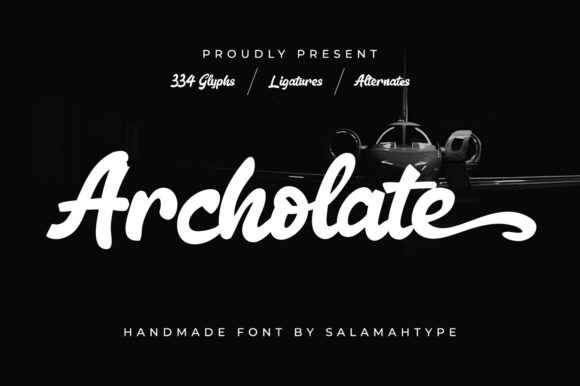
Archolate Script: Bringing Elegant Flow to Your Designs
When a project calls for a touch of personality that feels both authentic and refined, the right typeface can make all the difference. Archolate Script is a script font that captures the essence of fluid, handwritten charm. It’s not just another decorative typeface; it’s a premium font crafted to inject warmth and elegance into your work. The characters flow with a delicate, connected rhythm, making it a standout choice for anyone looking to add a human touch without sacrificing sophistication. This isn't about mimicking a hurried note—it’s about achieving a polished, romantic aesthetic that feels intentionally beautiful.
The Visual Heartbeat: Style and Personality
Looking closely at Archolate Script, you'll notice its defining feature: a graceful, flowing baseline. The letterforms are designed with gentle curves and subtle variations in stroke width, mimicking the natural pressure of a skilled hand holding a fine pen. This gives the handwritten font a lively yet composed character. It avoids the extremes of being overly casual or overly formal, landing in a sweet spot that feels both personal and professional. The overall appeal is one of understated romance and timeless charm. It’s a display font that commands attention through its beauty, not its volume, making it ideal for headlines, logos, and short, impactful text where its intricate details can truly shine.
One of the most practical aspects of this typeface is its PUA encoding. For designers and creators, this means every glyph, swash, and stylistic alternate is easily accessible, even in basic design software. You can seamlessly add flourishes to capital letters or connect words in unique ways to customize the look for each specific application. This level of access transforms Archolate Script from a static font into a dynamic design asset, allowing for true creative expression and ensuring your typography feels bespoke.
Where Archolate Script Truly Shines: Practical Applications
Understanding a font’s personality is one thing; knowing where to deploy it is where the real value lies. Archolate Script excels in projects where emotional connection and visual elegance are paramount. Its versatility allows it to enhance a wide array of creative endeavors.
Branding and Identity Projects
For logo design and brand identity, this typeface can become the cornerstone of a brand's voice. It’s particularly effective for businesses in the wedding industry, artisanal goods, boutique shops, florists, bakeries, and high-end personal services. When used in a logo, Archolate Script instantly communicates care, quality, and a personal touch. Pairing it with a clean, geometric sans serif font for body text creates a beautiful contrast that balances elegance with readability, establishing a professional and cohesive brand system.
Digital Presence and Marketing
In the digital realm, Archolate Script is a powerful tool for social media graphics, website hero sections, and email headers. It helps key messages stand out in a crowded feed. Imagine a quote graphic on Instagram or a promotional banner for a new product launch—this font adds a layer of sophistication that can elevate the entire campaign. For web design, it’s best used sparingly for headlines or pull quotes to maintain fast loading times and ensure legibility across all devices. Its romantic style can make blog post titles for lifestyle, travel, or food blogs feel more inviting and engaging.
Print and Packaging Design
The applications in print are equally compelling. Archolate Script is a natural fit for packaging design, especially for products that tell a story of craftsmanship. Think of labels for small-batch cosmetics, artisan chocolates, or boutique wines. In editorial design, it can grace the cover of a magazine, the chapter headings of a book, or the masthead of an invitation suite. For personal projects like wedding stationery, thank-you cards, or custom prints, it provides a professional finish that feels deeply personal.
Integrating Archolate Script into Your Workflow
Choosing a new creative font is an investment, and integrating it thoughtfully is key to getting the best return. Here’s some practical guidance for working with Archolate Script.
Evaluate the Project Fit: Before selecting any script font, consider the project's audience and message. Archolate Script is perfect for themes of love, elegance, tradition, and artisanal quality. It might not be the best choice for a corporate finance report or a technical manual, where clarity and neutrality are the primary goals. Always let the project's needs guide your typographic choices.
Master Font Pairing: The true power of a display font like this is often realized in how it pairs with other typefaces. For a harmonious and readable layout, combine Archolate Script with a simple serif font or a sans serif font. A serif like Lora or a sans serif like Montserrat can provide a stable, legible foundation for paragraphs, allowing the script to command attention in headlines. Avoid pairing it with other highly decorative fonts, as this can create visual chaos and diminish the impact of both.
Test for Readability: While beautiful, all script fonts require careful consideration of size and context. Use Archolate Script at larger sizes for headlines, logos, and short phrases where its details are clear. For smaller text, such as subheadings or captions, ensure there is sufficient contrast and spacing. Always conduct a readability test on both screen and print to see how the letterforms hold up.